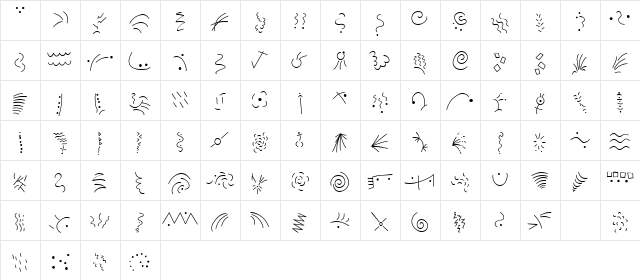
MiniPics ConfettiLight Font Preview
MiniPics ConfettiLight
MiniPics ConfettiLight Font Details
Design Context for MiniPics Typeface
MiniPics is a composed and adaptable typeface that performs quietly and consistently across a wide range of design contexts. The delicate stroke weight brings airiness and refinement to layouts.